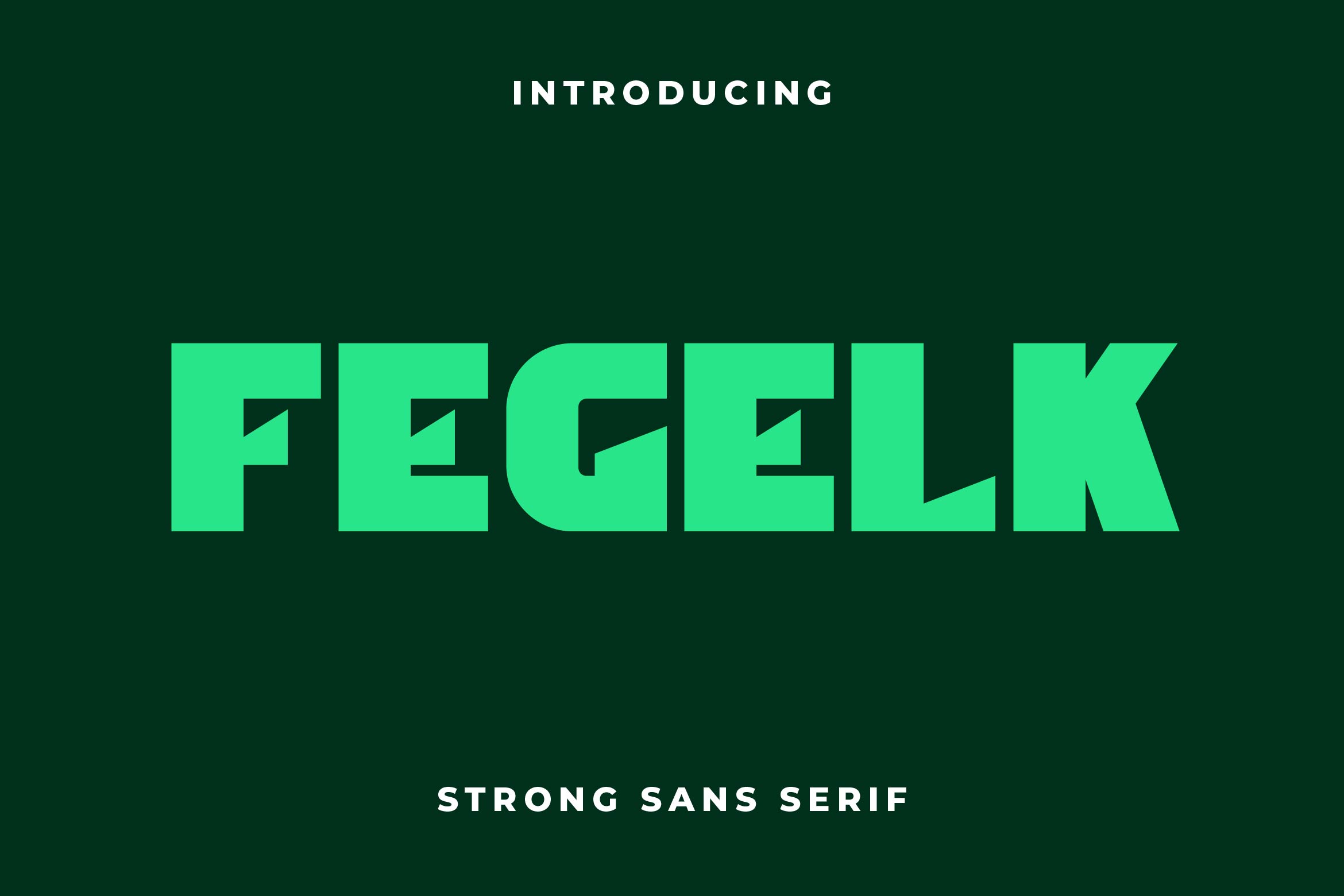
- Fegelk Strong Modern Sans Serif Font
Fegelk is a strong and modern sans serif font designed to make your text stand out with confidence and clarity. Featuring thick strokes, sharp edges, and a balanced geometric structure, Fegelk is perfect for impactful headlines, branding, posters, sports graphics, advertising, and packaging projects that demand attention.
Its bold and commanding letterforms ensure excellent legibility while giving your designs a modern and professional tone. Fegelk adapts seamlessly across both print and digital platforms, making it ideal for dynamic and high-energy visual identities.
The font includes uppercase and lowercase letters, numerals, punctuation, multilingual support, and stylistic alternates for added flexibility and customization.
Make every word powerful and unforgettable with Fegelk — the bold sans serif font that defines strength, precision, and modern style.